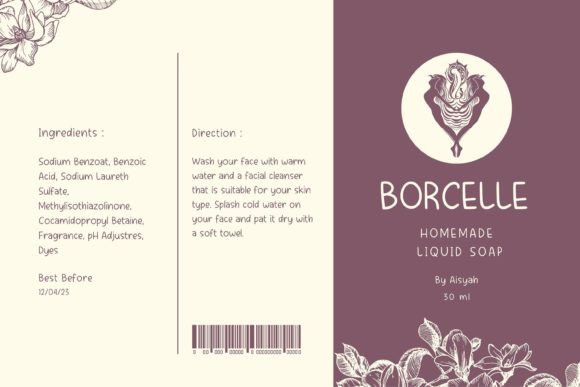
Discover the Elegance of Falecity Font: Elevate Your Design with Versatility and Style
Embark on a journey of visual eloquence with Falecity, a captivating typeface that has been making waves in the world of typography. Its tasteful design and versatile charm make it an excellent choice for a broad array of applications, from elevating your brand’s identity to adding a personal touch to your logos. Whether you’re a designer, crafter, or simply someone who appreciates the art of typography, Falecity is sure to leave a lasting impression.
The Perfect Blend of Style and Clarity
One of the standout features of Falecity is its unique blend of style and clarity. In today’s fast-paced world, effective communication is key, and typography plays a crucial role in conveying messages. Falecity’s well-defined curves and sharp edges make it a true standout in typographic artistry, delivering your messages with lasting impact. Whether you’re looking to communicate complex information, such as ingredient listings on your products, or simply want to add a touch of elegance to your brand’s identity, Falecity is the perfect choice.
Elevate Your Brand’s Identity with Falecity
Your brand’s identity is more than just a logo or a name – it’s a reflection of your values, personality, and mission. With Falecity, you can elevate your brand’s identity and make a lasting impression on your audience. Its tasteful design and versatile charm make it an excellent choice for a wide range of applications, from business cards and brochures to website headers and social media graphics. Whether you’re looking to rebrand or simply want to refresh your visual identity, Falecity is the perfect companion.
Add a Personal Touch to Your Logos and Designs
Falecity is more than just a typeface – it’s a design statement. Its unique blend of style and clarity makes it an excellent choice for adding a personal touch to your logos and designs. Whether you’re a designer looking to create a custom logo for a client or a crafter looking to add a touch of elegance to your handmade products, Falecity is the perfect choice. Its well-defined curves and sharp edges make it a true standout in typographic artistry, and its versatility ensures that it will fit seamlessly into any design.
Communicate Complex Information with Ease
One of the most significant challenges of typography is communicating complex information in a clear and concise manner. Falecity is designed to meet this challenge head-on, with a unique blend of style and clarity that makes it perfect for complex ingredient listings, instructions, and other types of information that require attention to detail. Whether you’re a manufacturer looking to comply with regulations or a craftsperson looking to provide clear instructions for your products, Falecity is the perfect choice.
The Artistry of Falecity
Falecity is more than just a typeface – it’s a work of art. Its well-defined curves and sharp edges make it a true standout in typographic artistry, and its unique blend of style and clarity ensures that it will leave a lasting impression on your audience. Whether you’re a designer, crafter, or simply someone who appreciates the art of typography, Falecity is sure to inspire and delight.
In conclusion, Falecity is a captivating typeface that offers a unique blend of style and clarity, making it perfect for a wide range of applications. Whether you’re looking to elevate your brand’s identity, add a personal touch to your logos and designs, or communicate complex information with ease, Falecity is the perfect choice. Its well-defined curves and sharp edges make it a true standout in typographic artistry, and its versatility ensures that it will fit seamlessly into any design. So why wait? Dive into the sea of well-defined curves and sharp edges that make Falecity a true standout in typographic artistry, and discover the elegance of Falecity font for yourself.
Key Features of Falecity Font:
- Tasteful design with versatile charm
- Perfect blend of style and clarity
- Well-defined curves and sharp edges
- Excellent choice for brand identity, logos, and complex information listings
- Unique and elegant typographic artistry
Applications of Falecity Font:
- Brand identity and logos
- Business cards and brochures
- Website headers and social media graphics
- Product labels and ingredient listings
- Handmade products and crafts